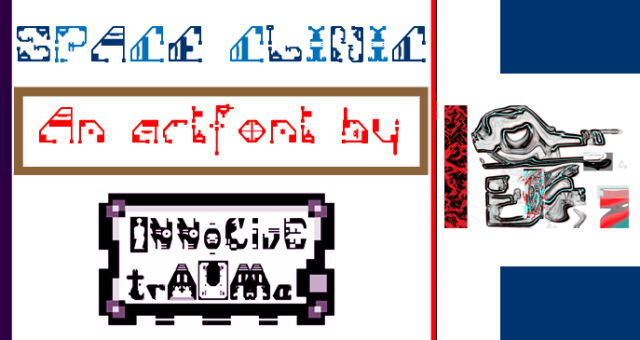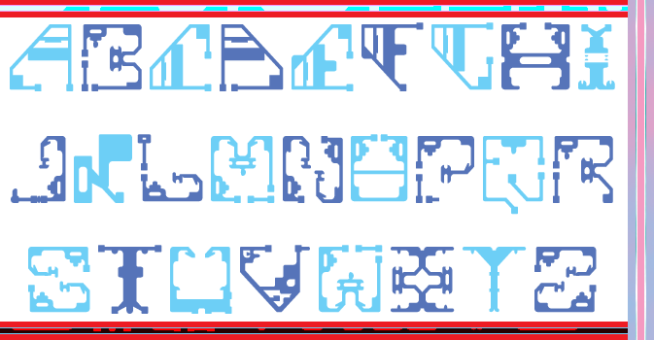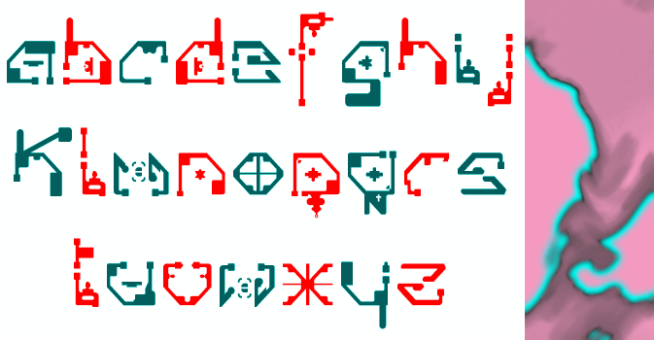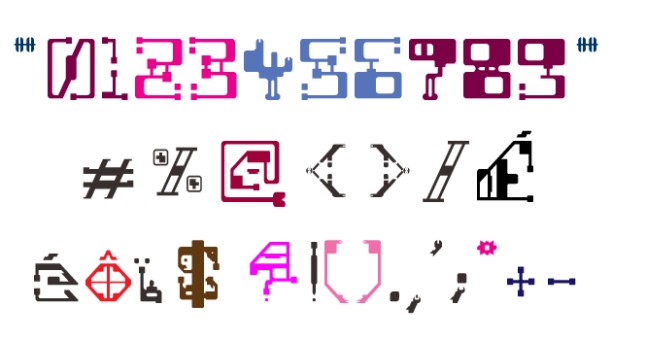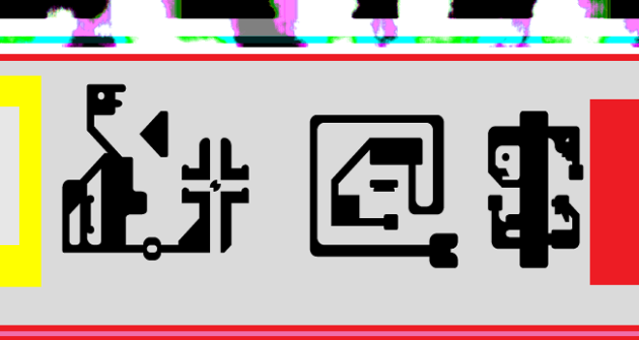
trAUMa 35 / Space Clinic
"Space Clinic", like all the "trAUMa" series, works at the frontier between Art & Type Design, Figuration & Abstraction, each font is a comprehensive world in which every glyph is a "living" entity. But put together they can produce your messages in the most accurate way.